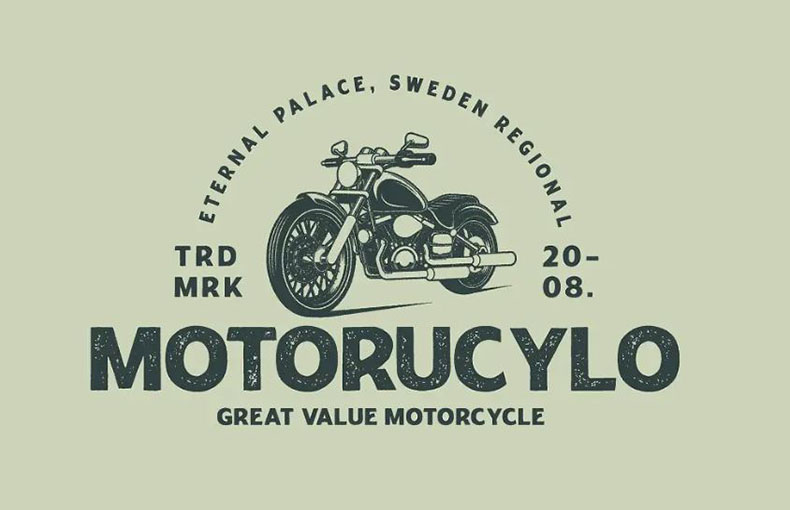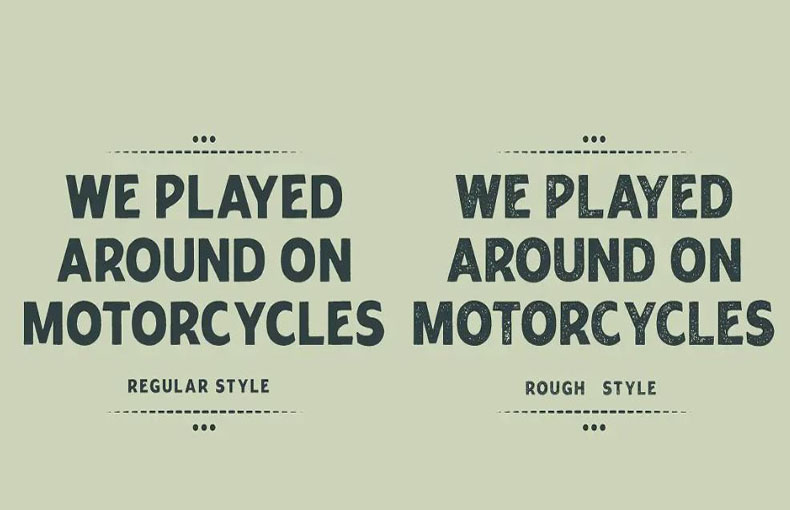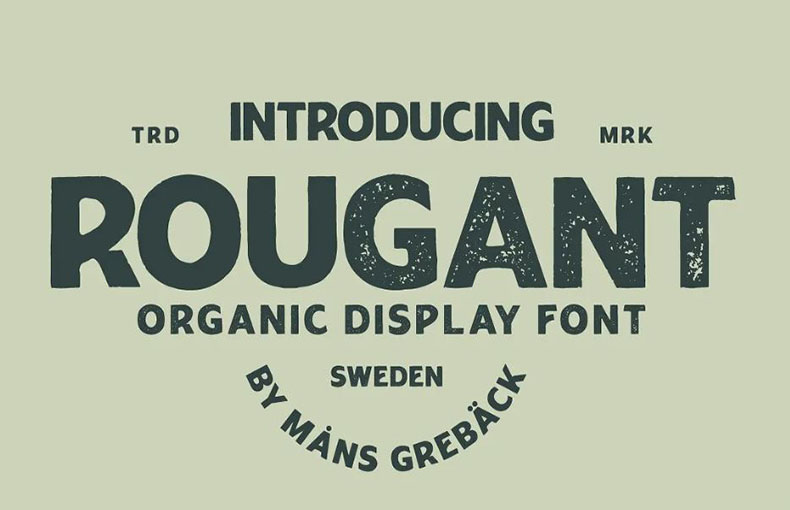
Rougant Font is a fancy retro display typeface that has a vintage look with a strong personality. Mans Greback is known as the primary designer of this font.
Due to its clean and polished look, you can use this font for various purposes including social media posters, headers, banners, branding, flyers, logos, and more.
The rougant font family is available in three different styles including regular, rough, and bold. This font includes contains 777 glyphs and 2762 binary stored kerning pairs.
Its rough style is great for vintage and grunge design while its bold style is great for making a statement. This font has a number of unique features including alternative glyphs and ligatures.
| Style: | Fancy, Display, Retro |
| Font Designer: | Mans Greback |
This remarkable font is perfect for creating designs for flyers, banners, headers, titles, book covers, and other similar purposes. You can use this font to design blog templates, themes, and social media posts. It is also a good choice for product packaging, print design projects, and decorative text designs.
This font supports 107 languages.
Rougant is a uniquе sans-sеrif typеfacе dеsignеd by Mans Grеback in 2021. It has a distinct vintagе stylе and a strong pеrsonality, making it idеal for logos, hеadlinеs, and othеr attеntion-grabbing graphics.